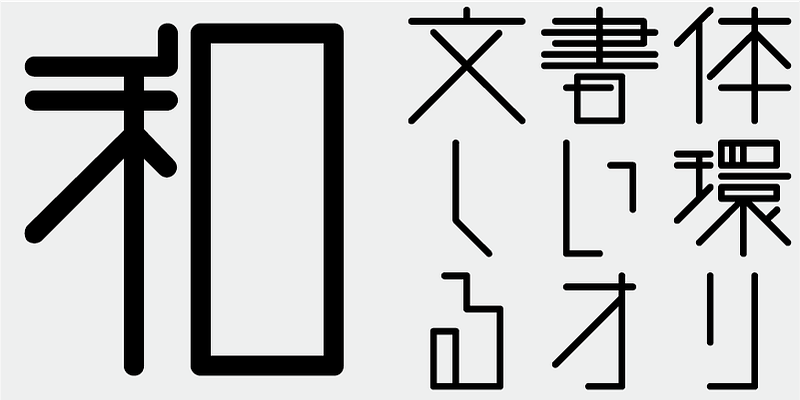
AB Hougan M500 Font Free Download
AB Hougan M500 Font Free Download is a sleek and modern sans-serif typeface with bold, clean lines and a strong presence. Designed for high readability and impact, it is perfect for use in branding, advertisements, packaging, and digital media where a contemporary and professional aesthetic is desired.
With its geometric shapes and precise structure, AB Hougan M500 provides a fresh, cutting-edge look. It works seamlessly in both display text and smaller text, making it versatile for a wide range of design projects. The font integrates easily with popular design tools such as Adobe Illustrator, Photoshop, Figma, and Canva, offering flexibility for both digital and print designs.